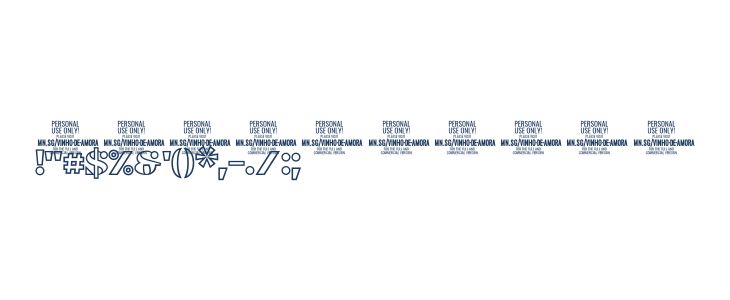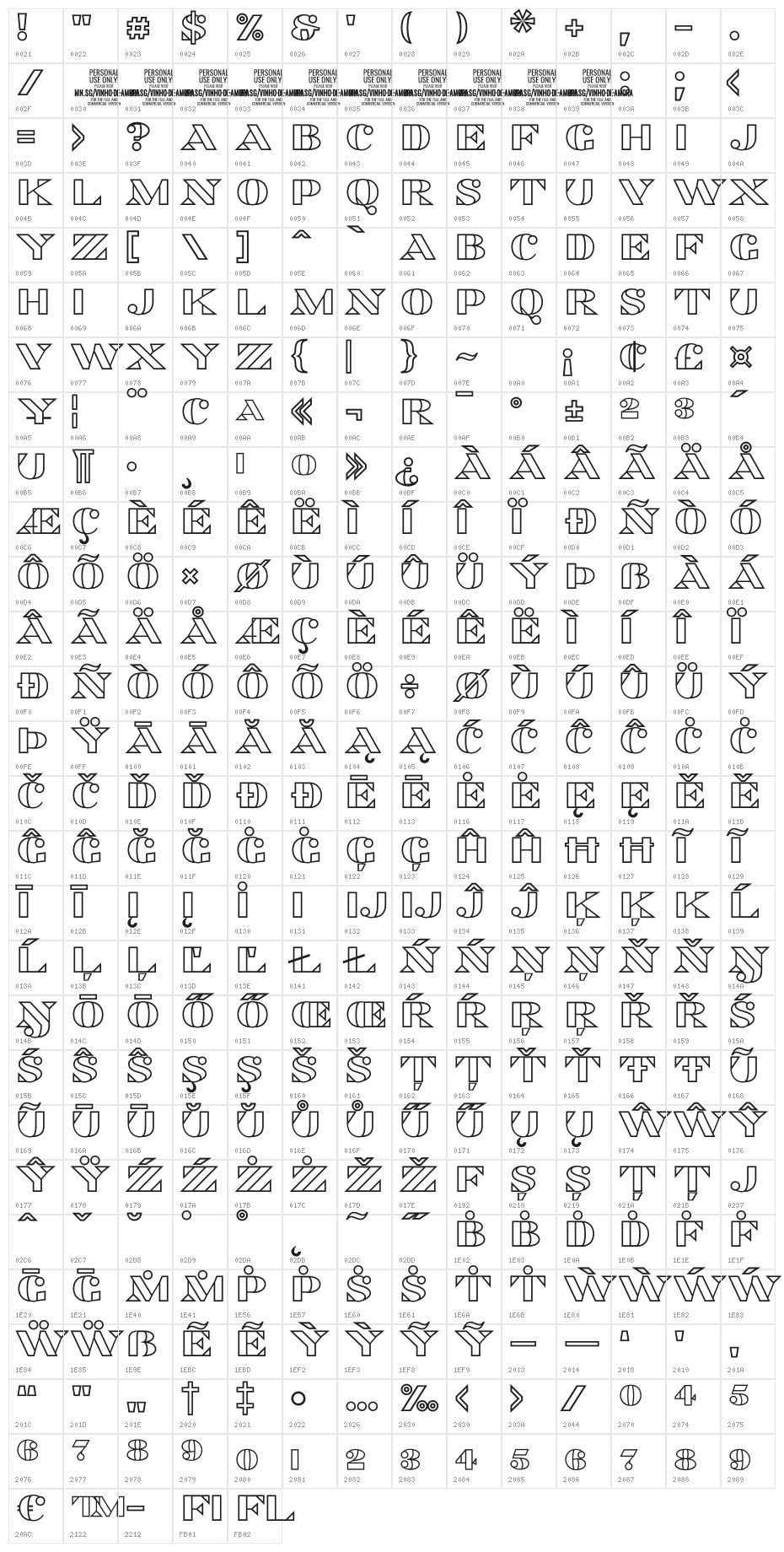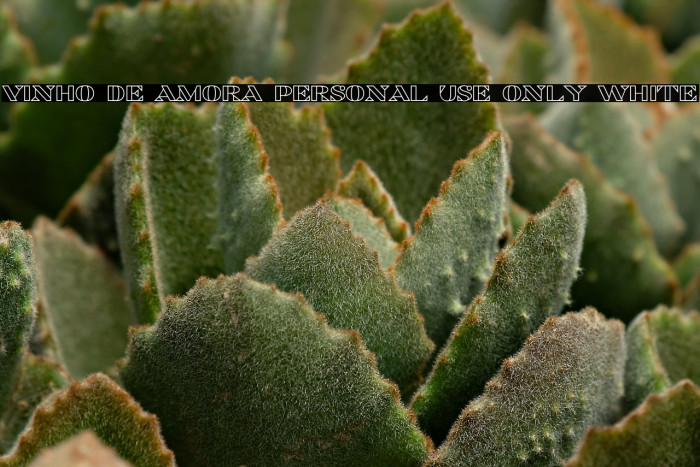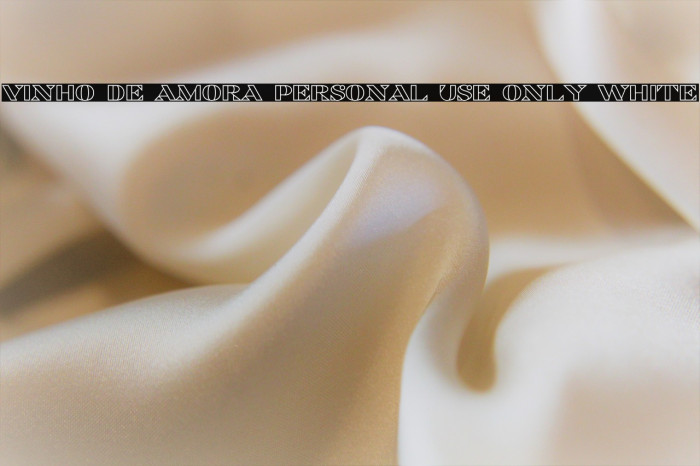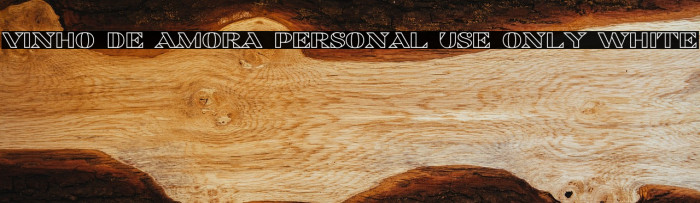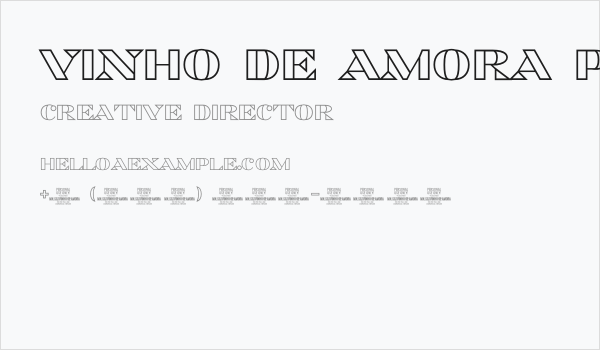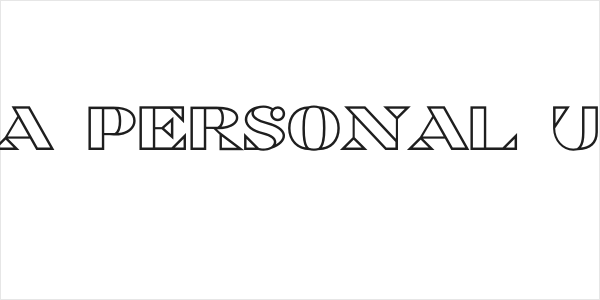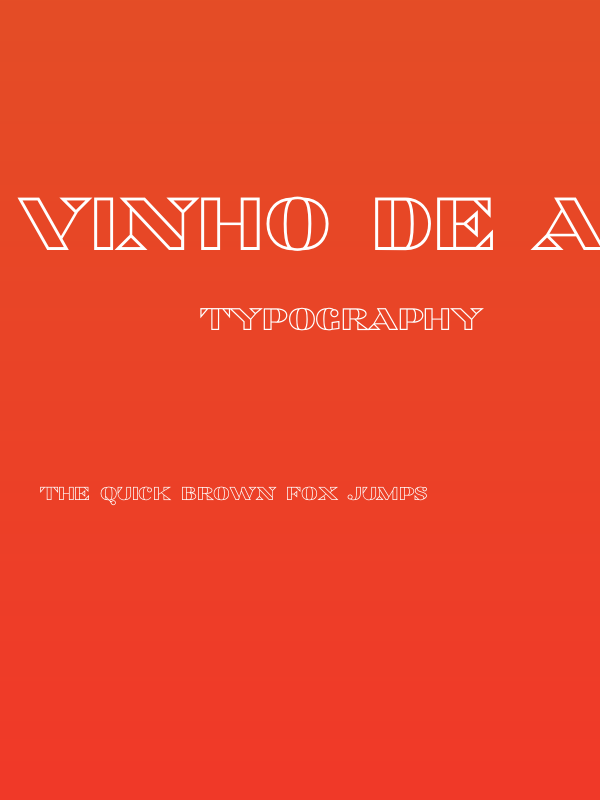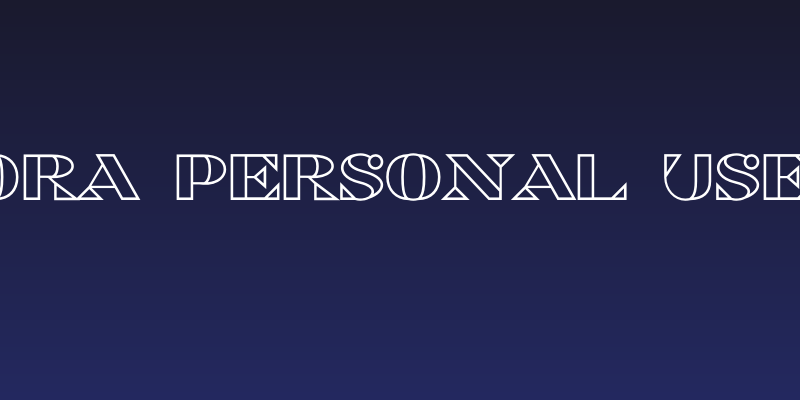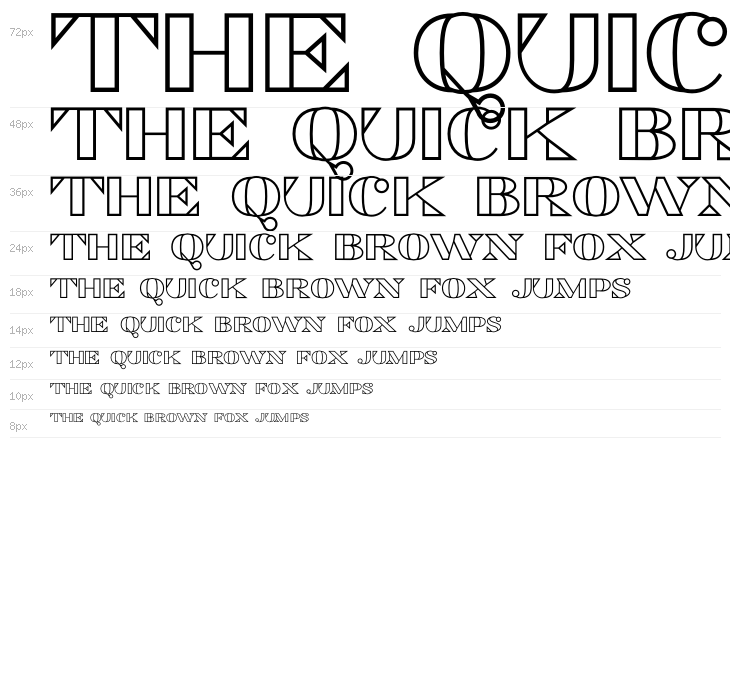
Vinho De Amora PERSONAL USE ONLY White Font
Vinho De Amora PERSONAL USE ONLY White Description
This font features a unique and decorative style with a geometric and angular design. Each character is outlined, creating a hollow effect that adds a modern and artistic touch. The uppercase letters exhibit a bold and striking appearance, while the lowercase letters maintain the same geometric theme. The numbers and special characters follow the same design principles, ensuring consistency across the font. The overall look is both contemporary and eye-catching, making it suitable for creative projects that require a distinctive and bold typeface.